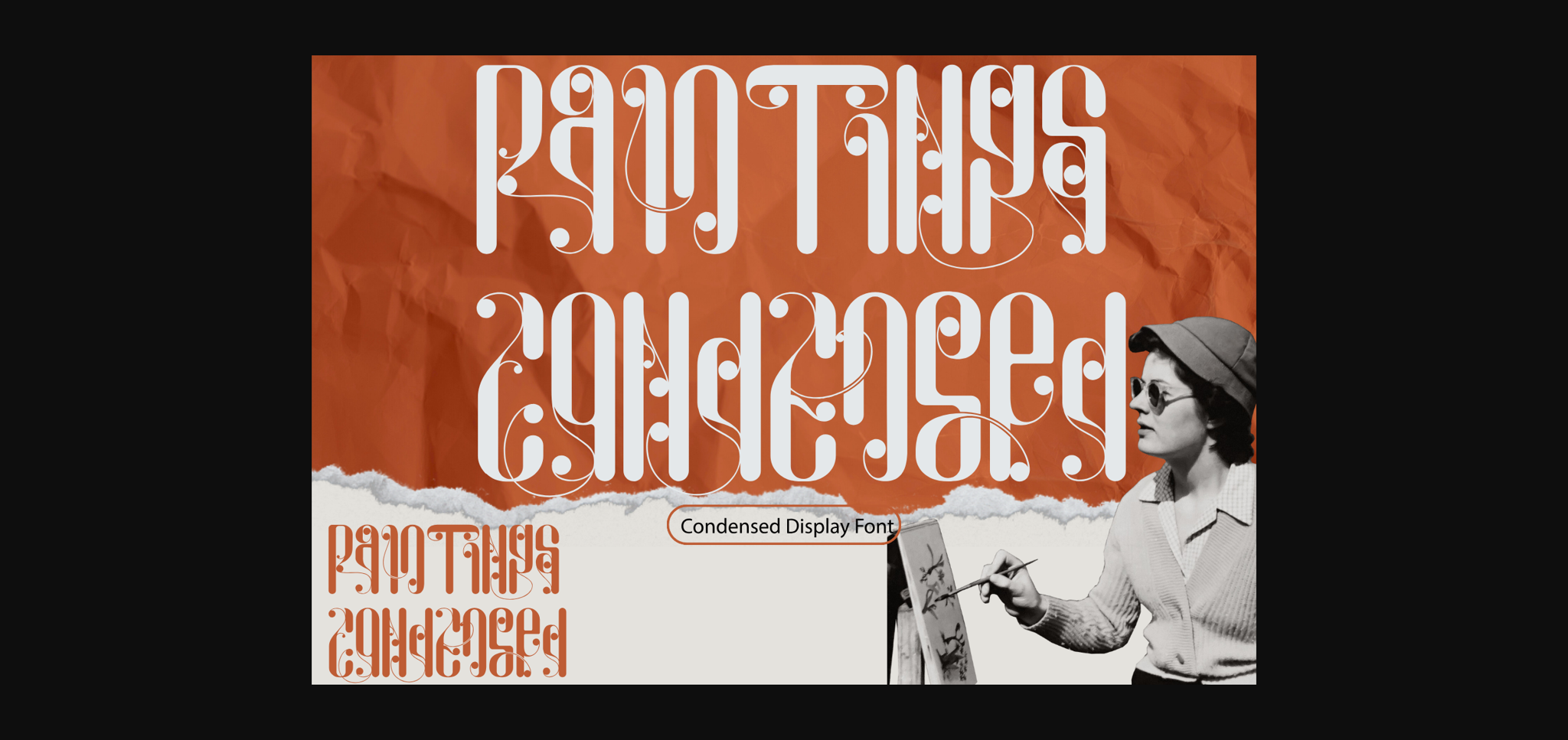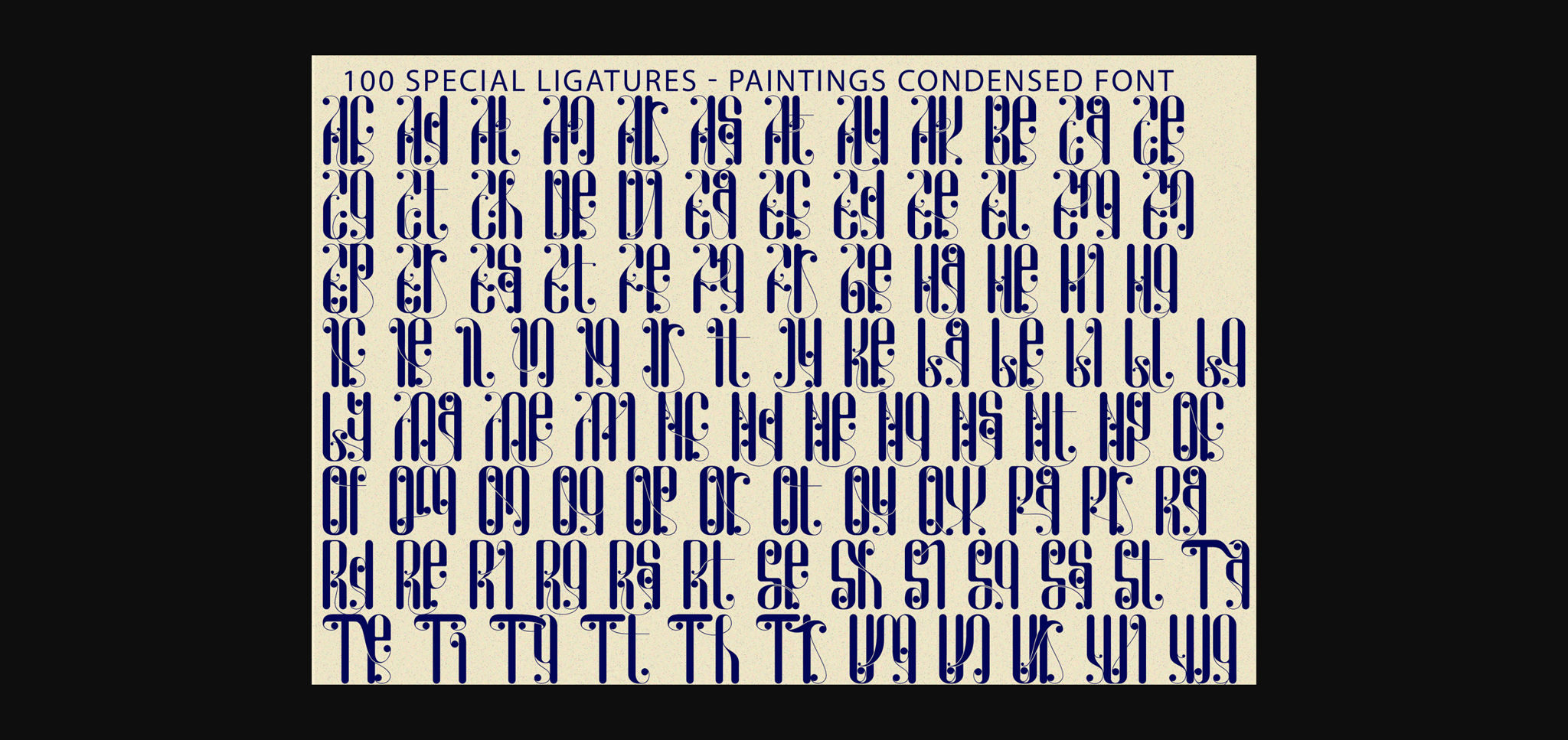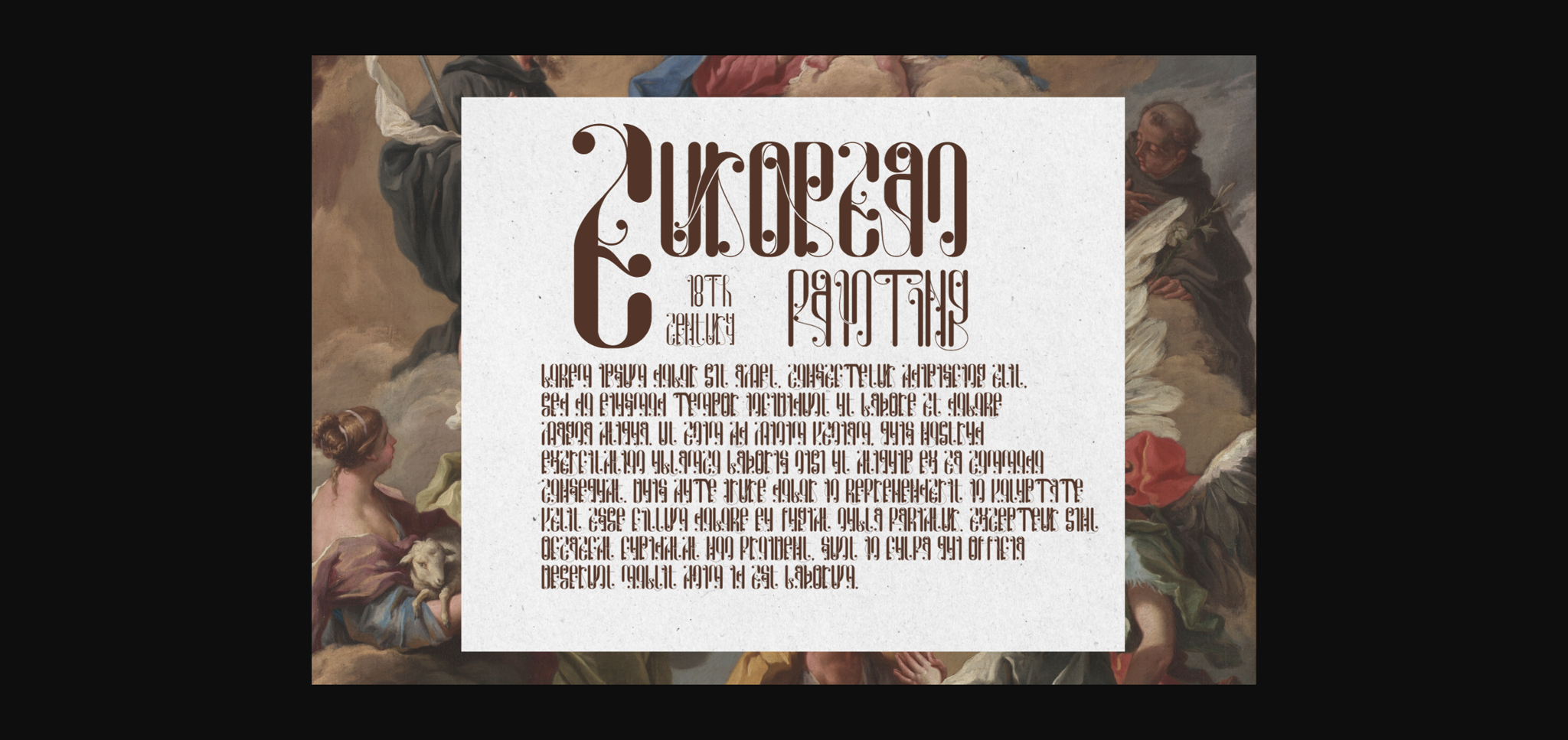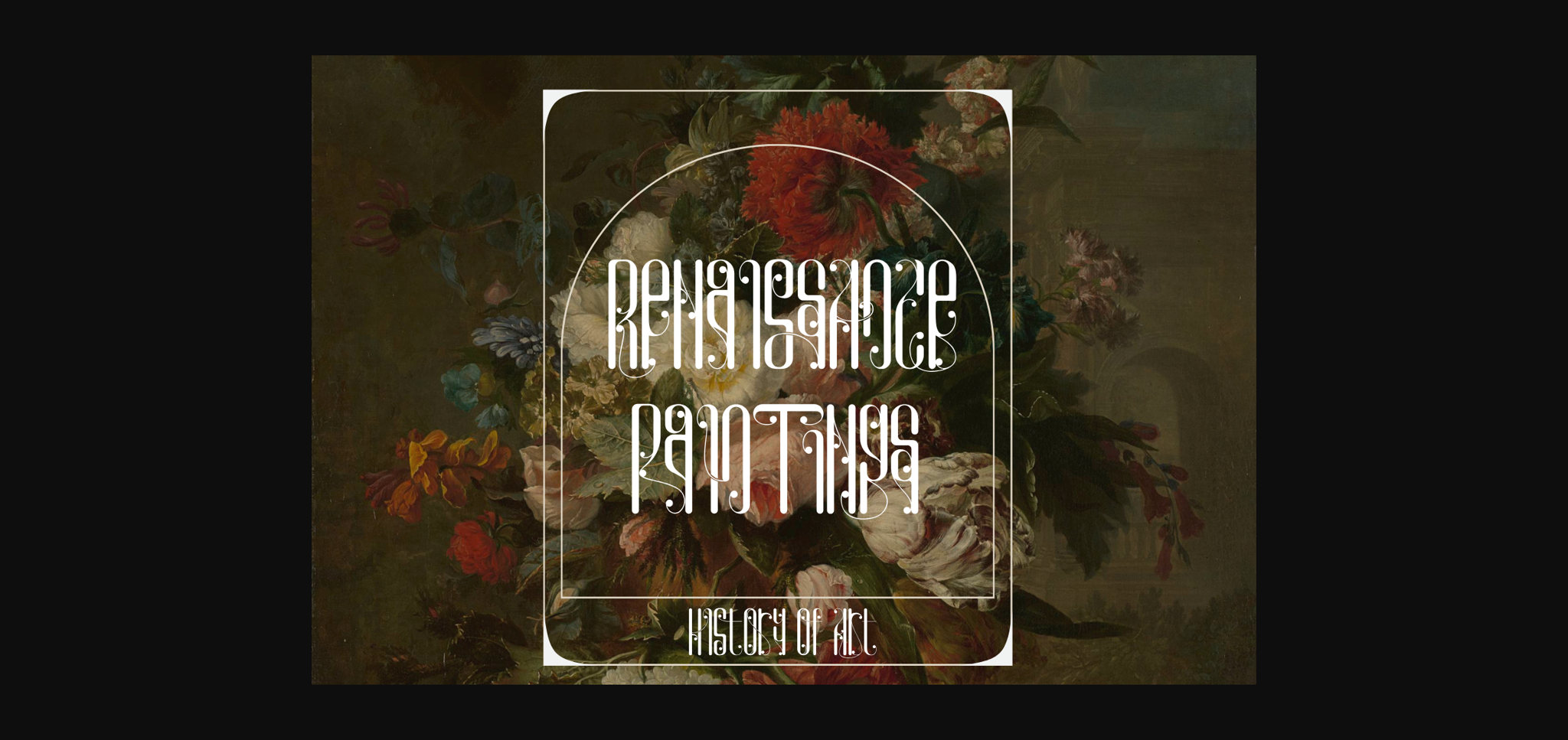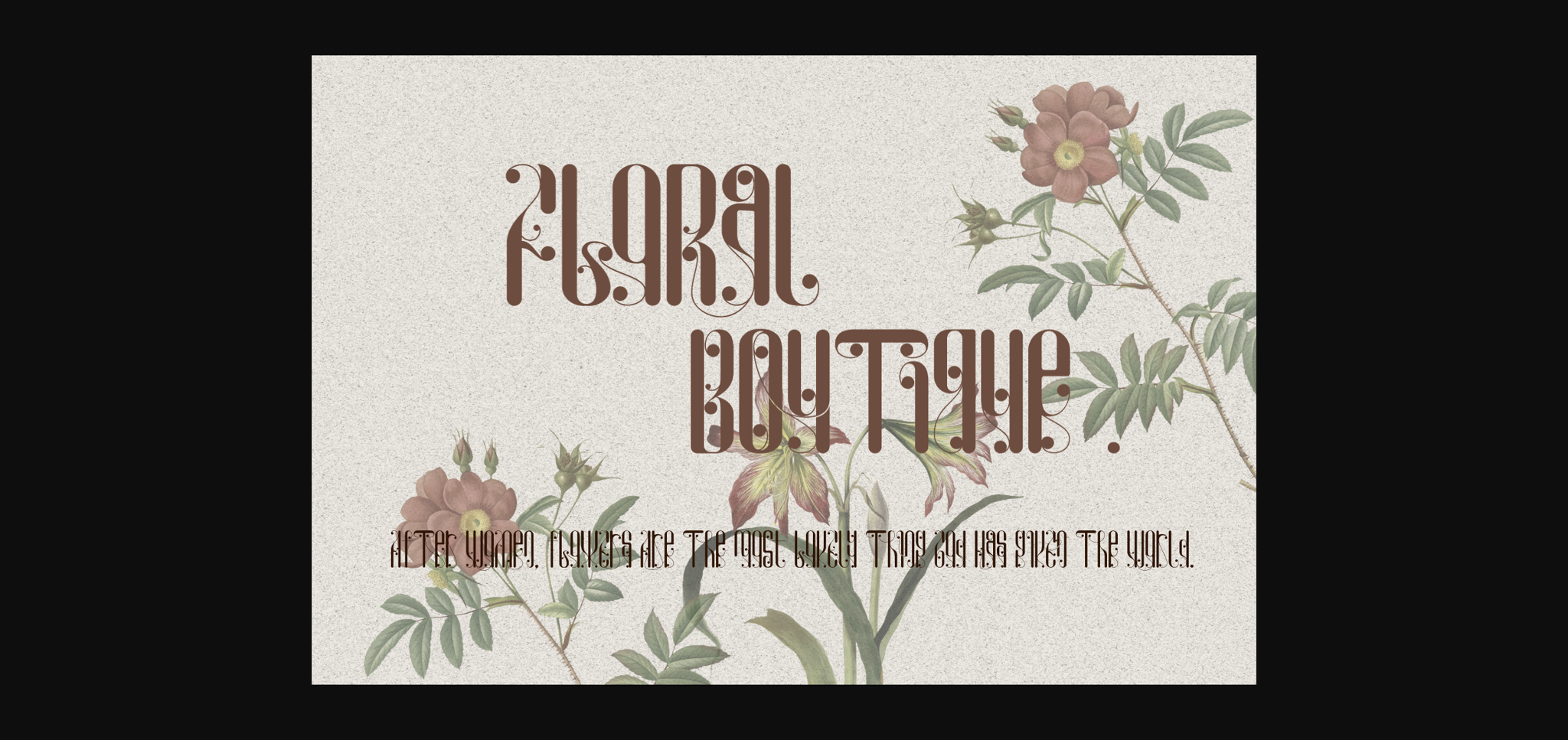
About Paintings Condensed Font
Paintings Condensed Font is a condensed serif typeface with lots of character. The idea behind it’s was to combine classic hand-drawn lettering elements with functional type – creating a font that is not your run of the mill display typeface. It’s was designed with a synthesis of the future and the past. While it carries sharper and futuristic lines than the future, it also incorporates the organic structure of the past.
Paintings was built with OpenType features and includes 100 ligatures, alternate, numbers, punctuation, and it also supports other languages.